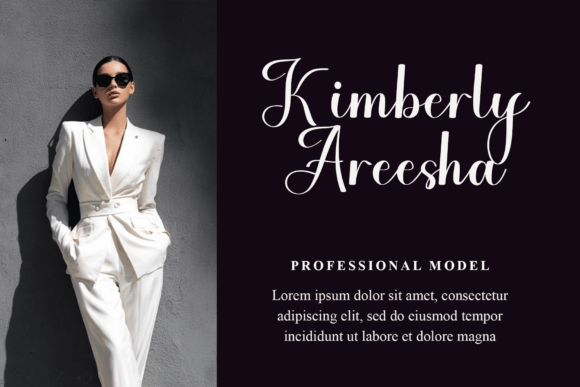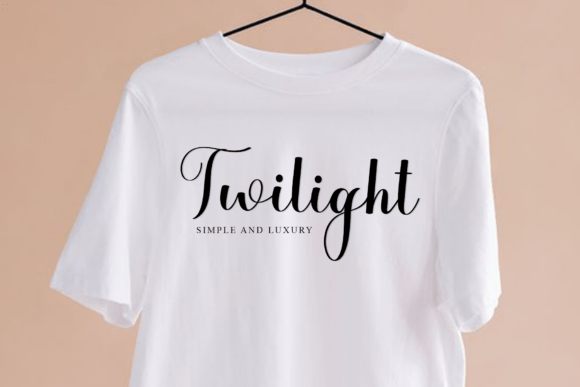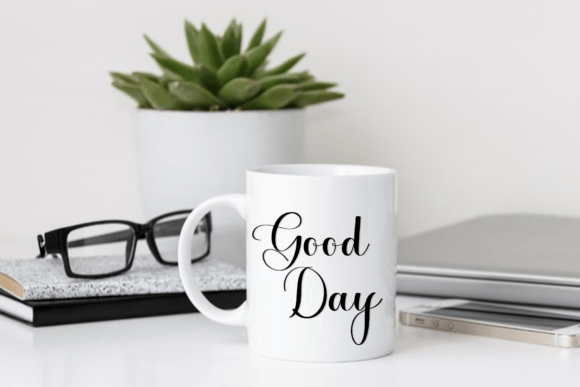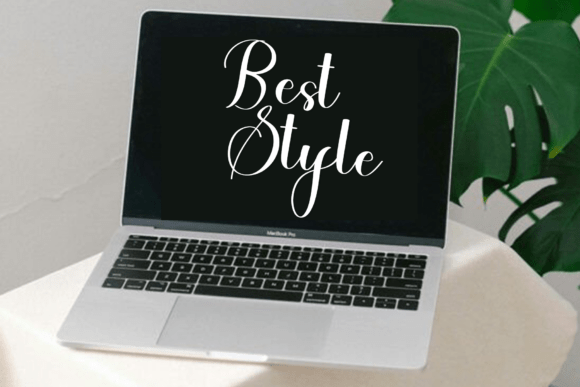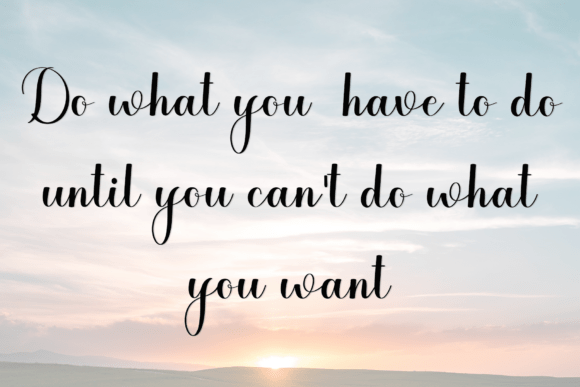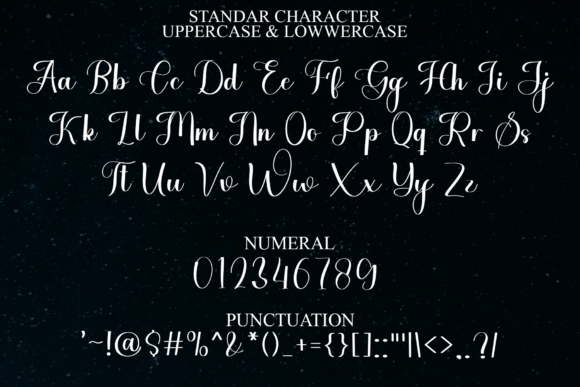
Introduction to Deary Darling Font
Deary Darling is a festive and merry typeface that captures the spirit of the holiday season.
Key Features of Deary Darling Font
Why Choose Deary Darling Font?
Deary Darling Font offers exceptional quality and versatility, making it a valuable addition to your design toolkit. Whether you’re creating for personal projects or commercial use, Deary Darling Font delivers professional results.